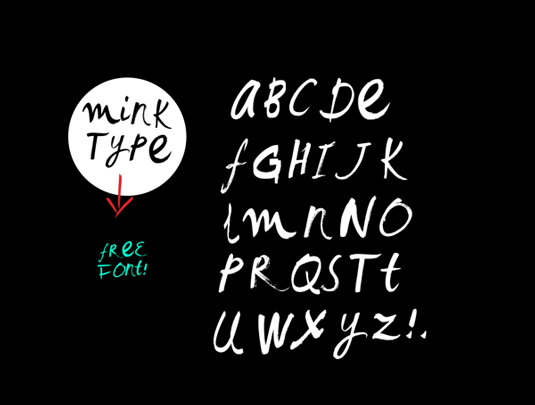
Font of the day: Mink Type
Mink Type by Filiz Sahin
Today's font of choice, Mink Type, was created by New York-based art director Filiz Sahin. "Mink Type is a cool, handpainted display typeface that was developed using brush tools in Illustrator," she comments. "Each letter has three variations including upper and lower cases so you can create a custom feel for your designs."